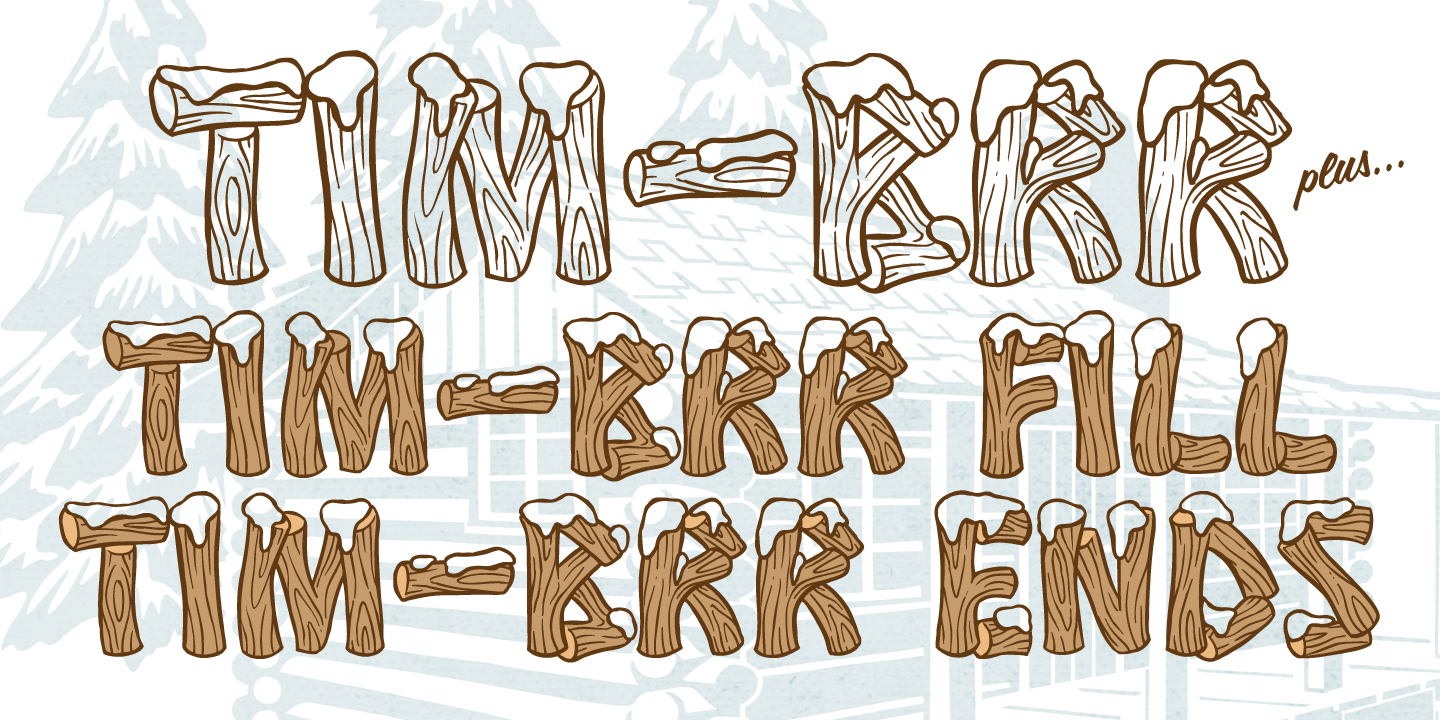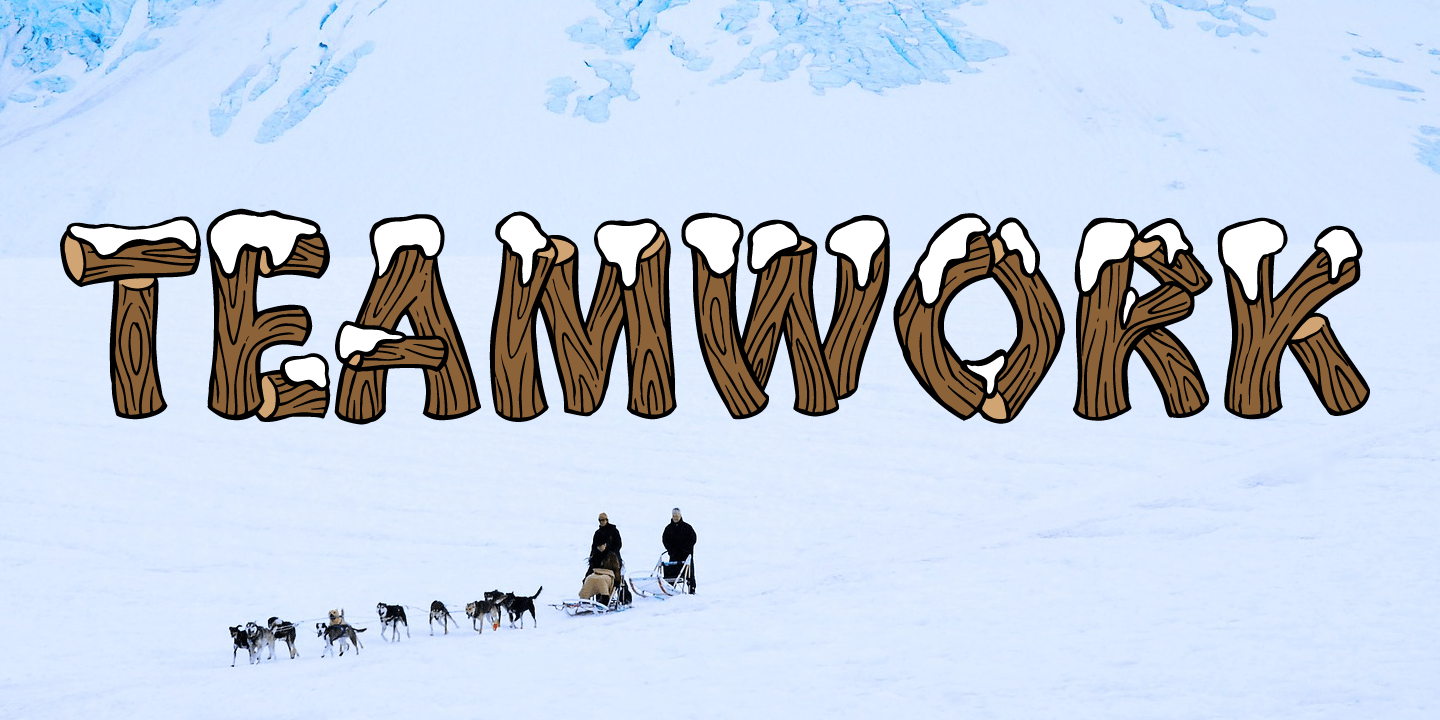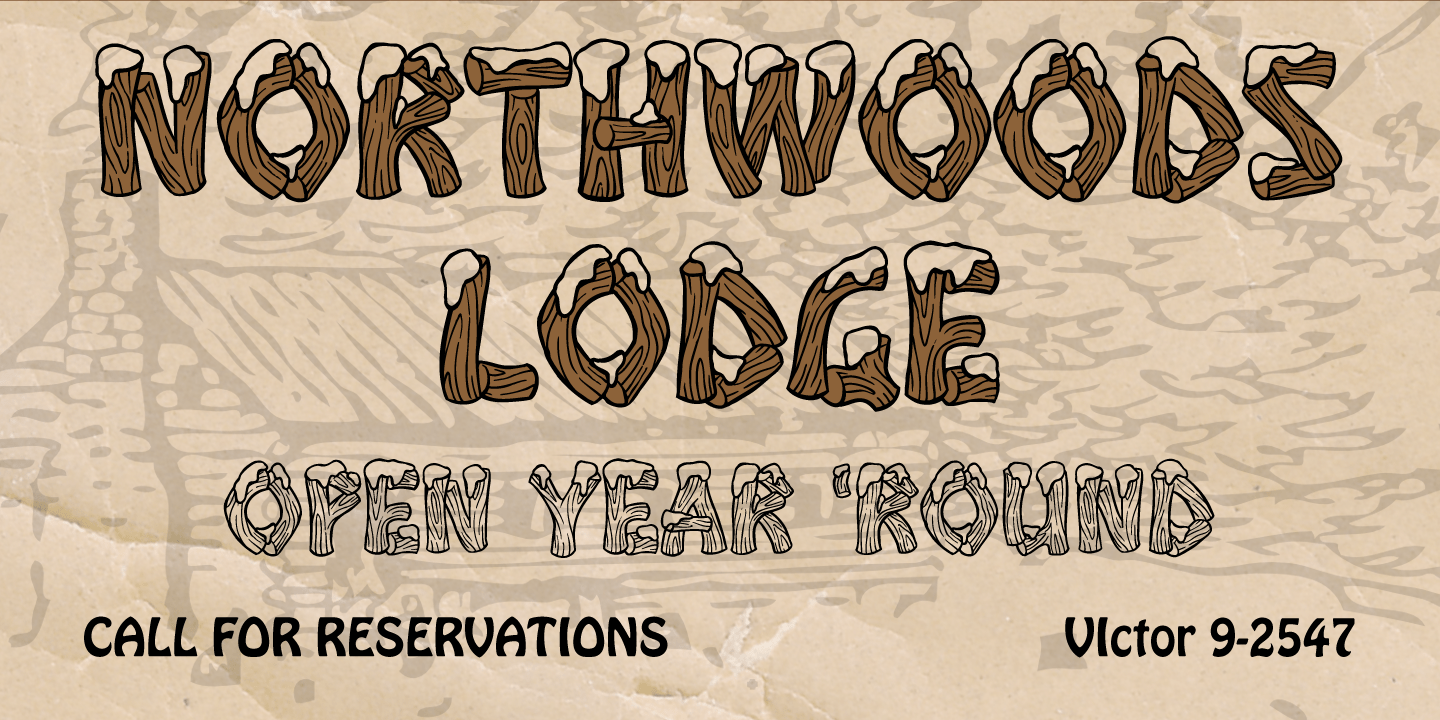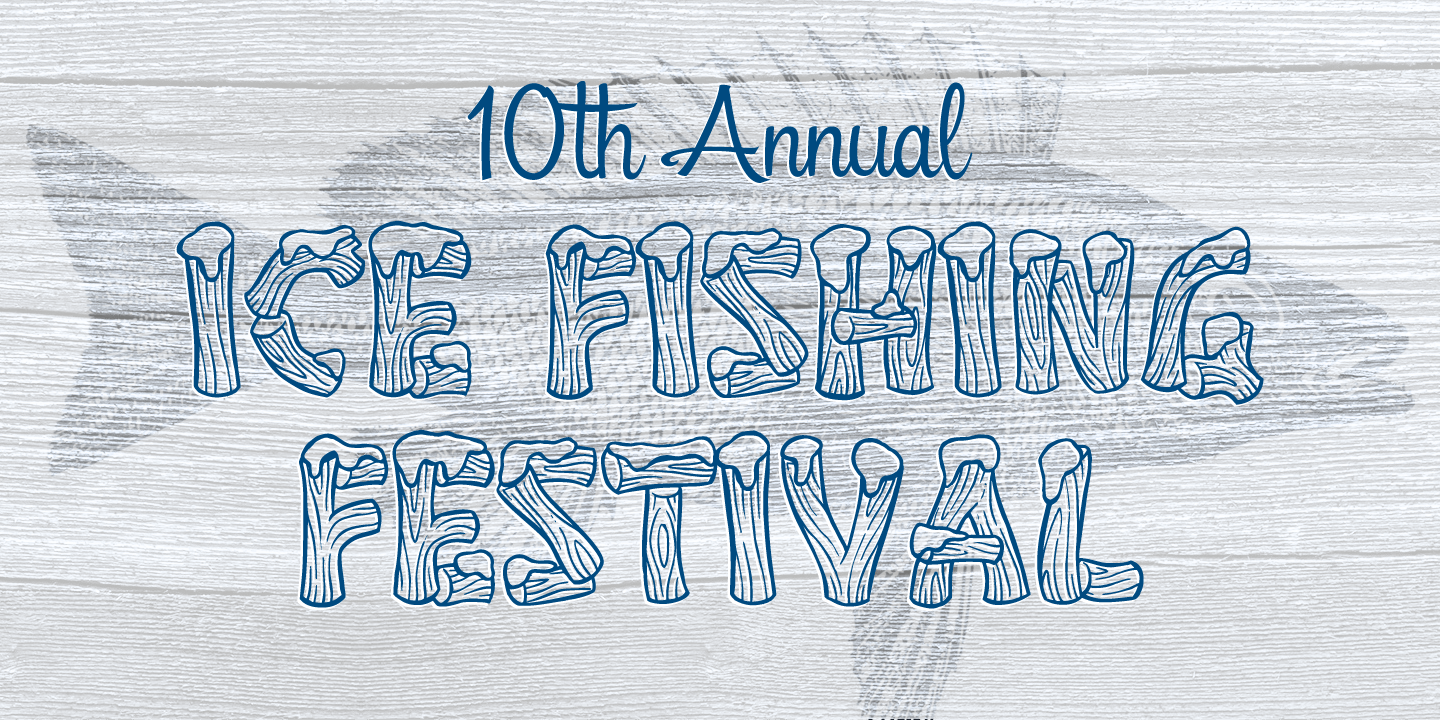
Timbrrr Fill & Ends
Font Family by Sideshow
Direct from the frozen north, it's TIM-BRR! It's cold, snowy and suitable for any hunting lodge or lake cabin. Heck, you can even use it in the big city with the same rustic results. KEEP FROZEN UNTIL READY TO USE. If you prefer pre-thawed logs check out Timber!